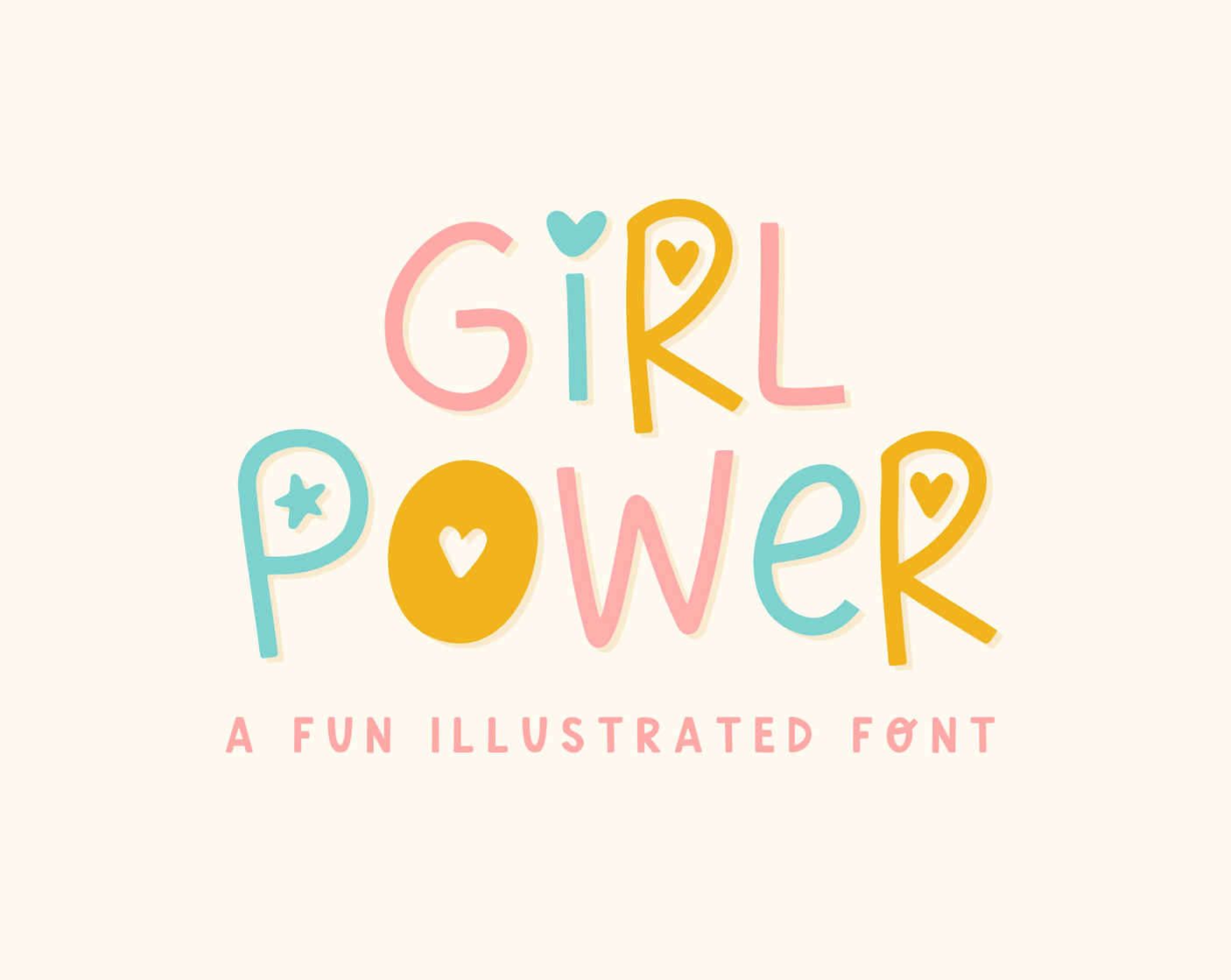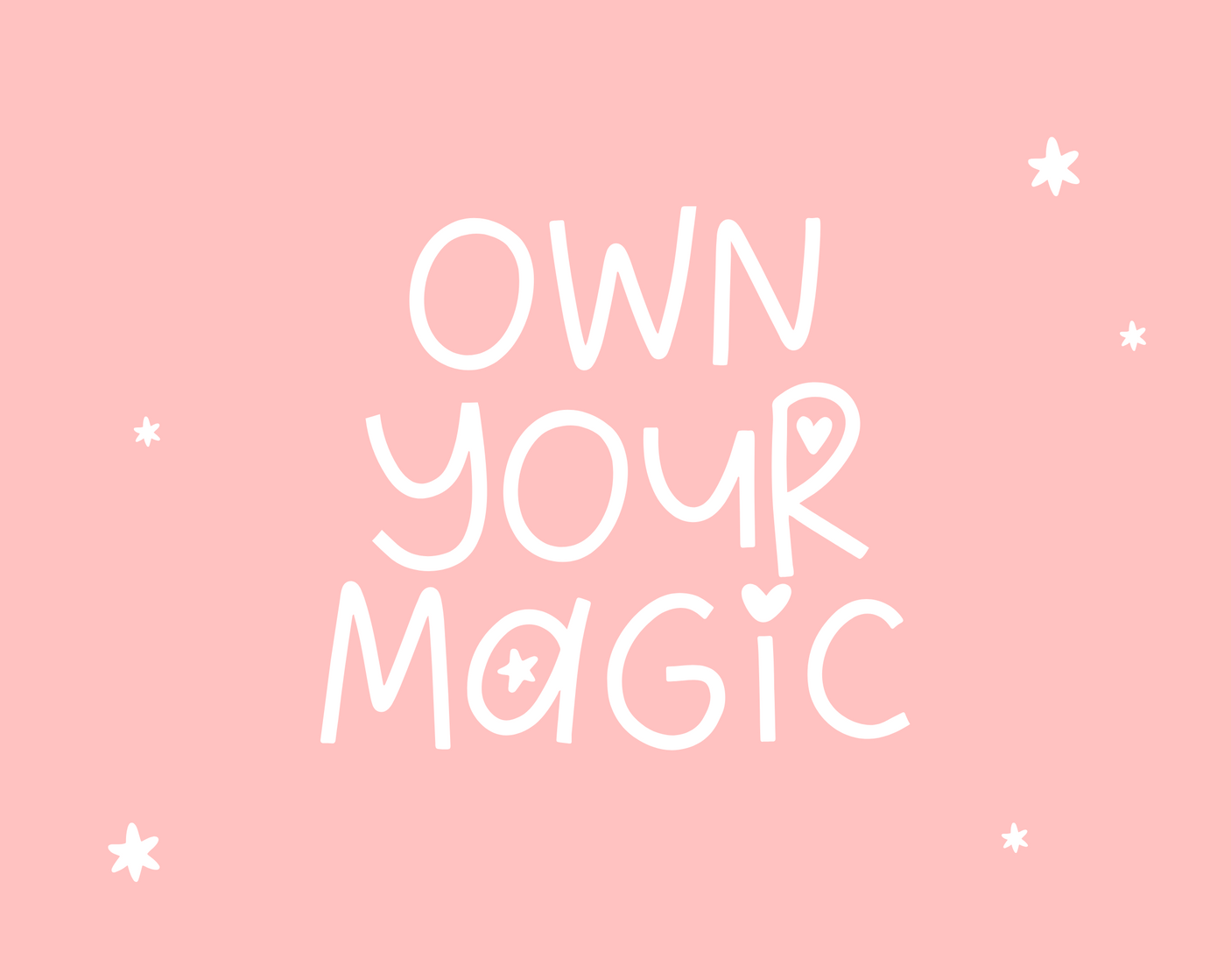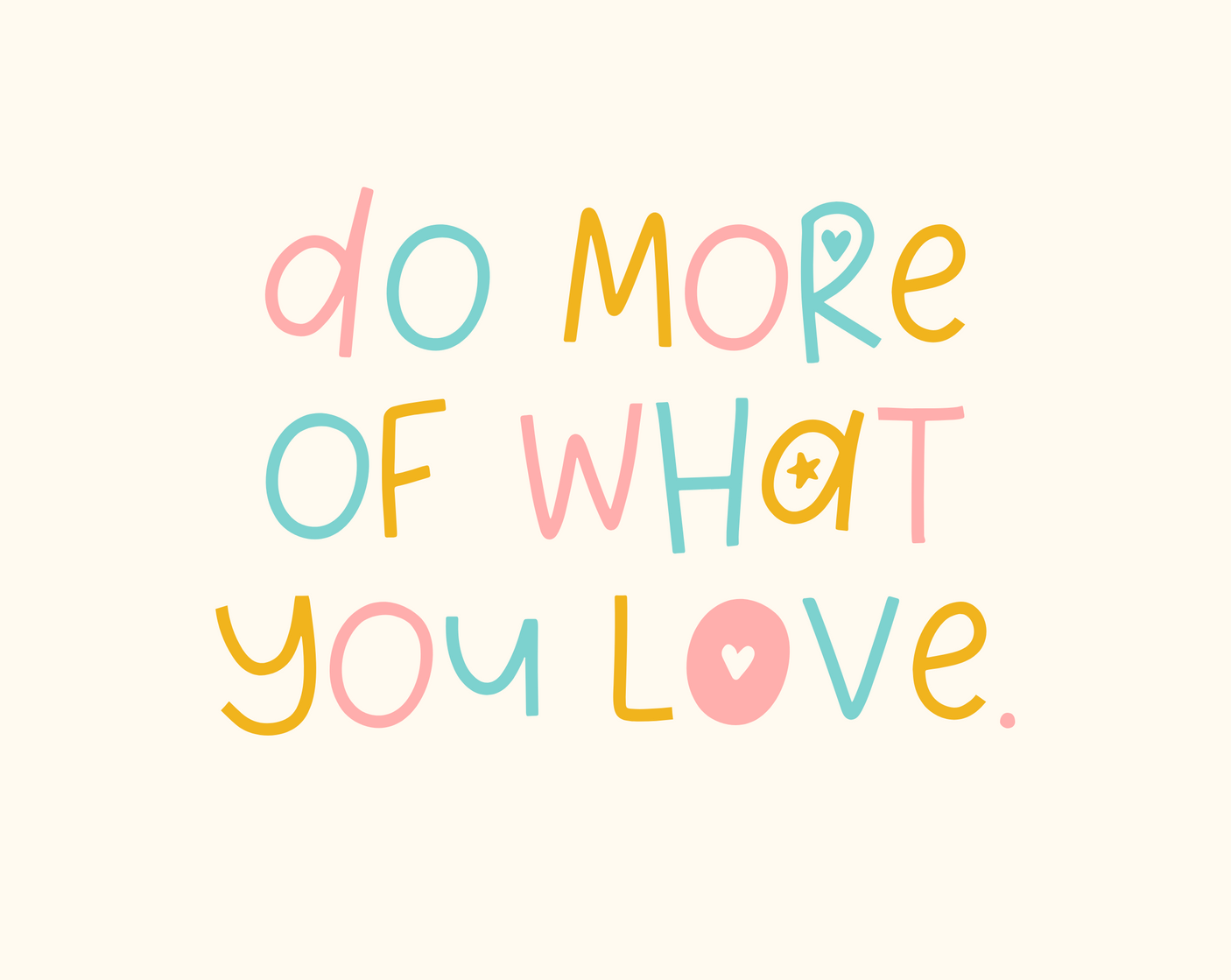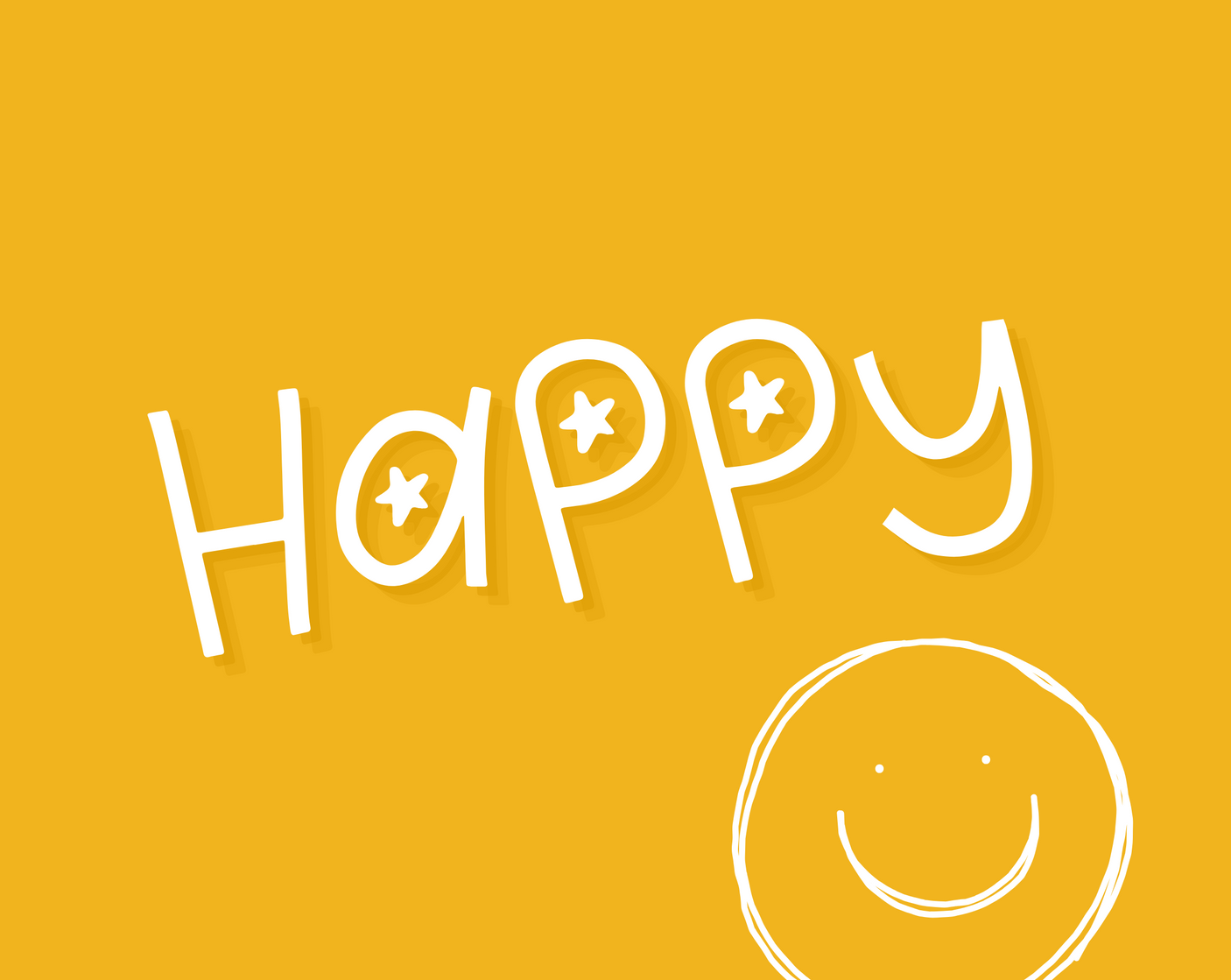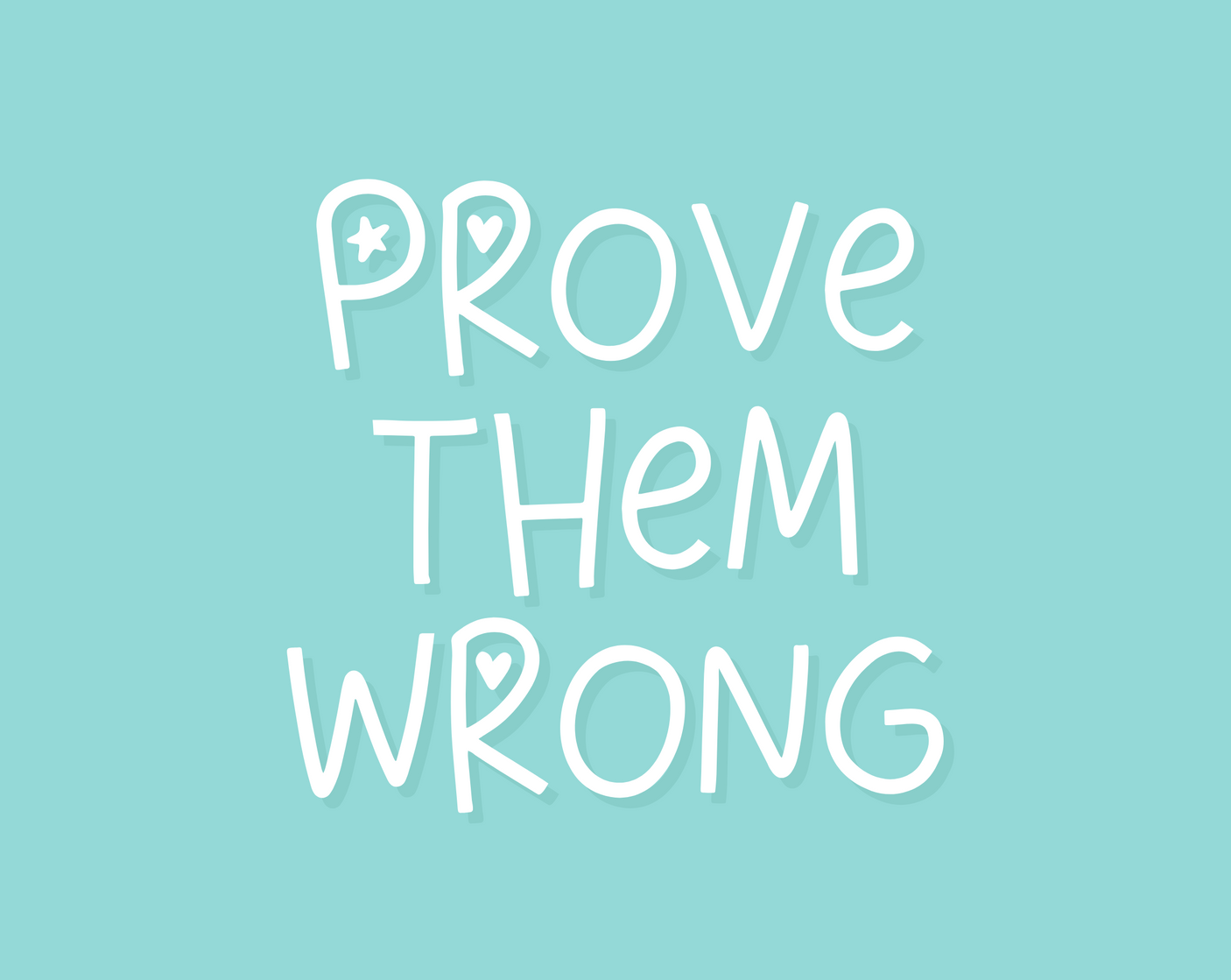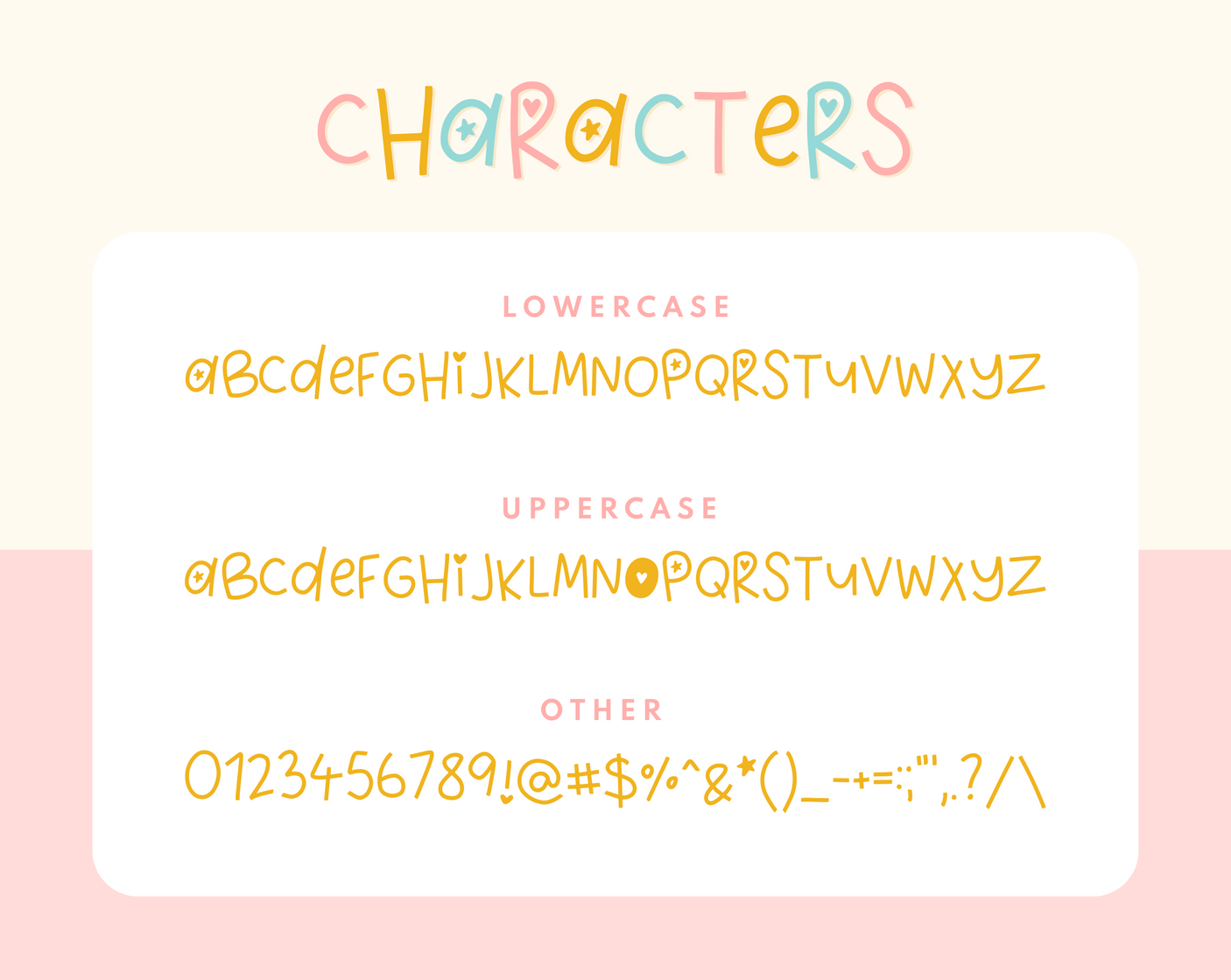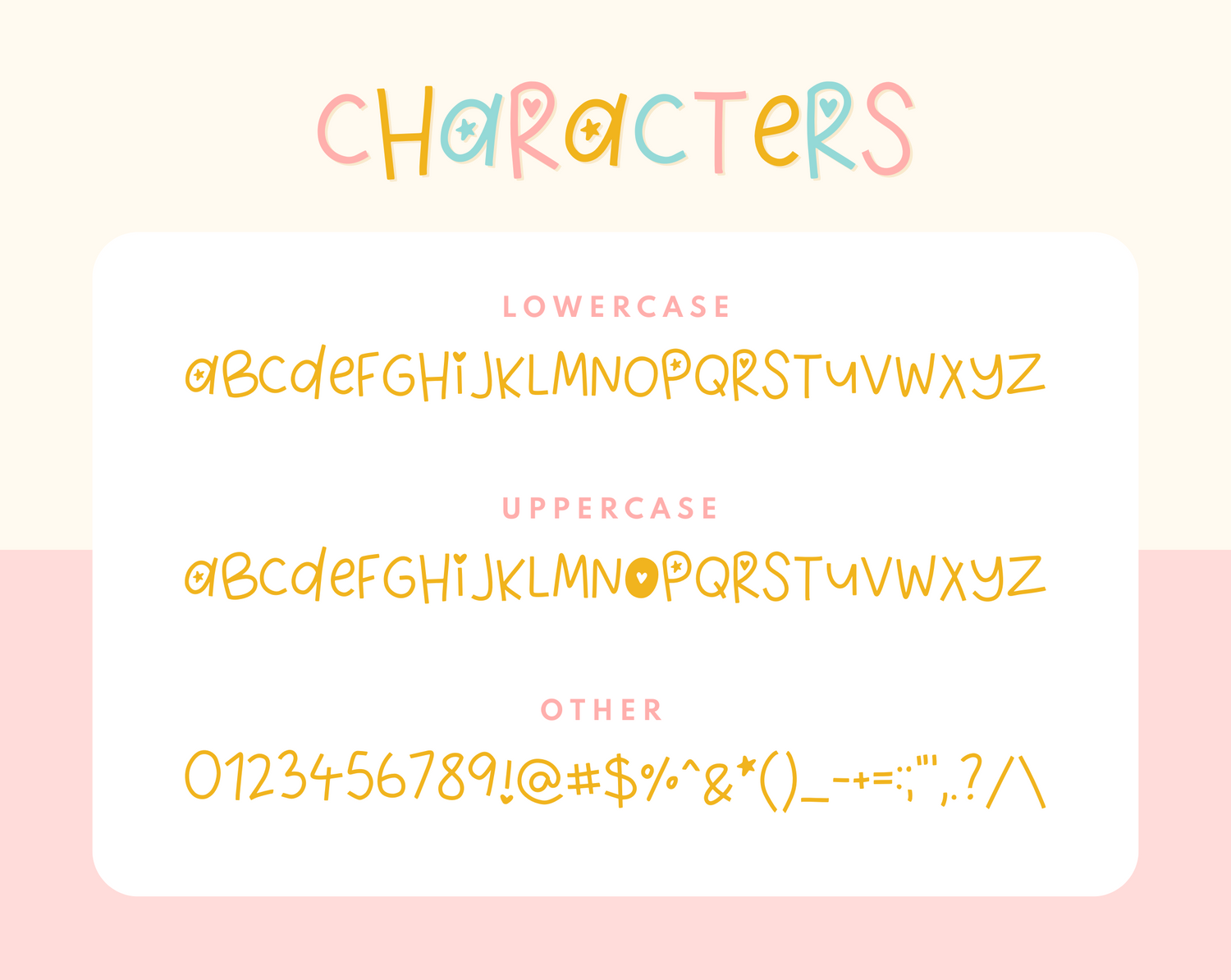
Girl Power Font
Unleash your creativity with the Girl Power font! This energetic typeface is a quirky blend of uppercase and lowercase letters that brings a lively, fun vibe to your projects.
Whether you're working on Procreate, Cricut, or Canva, this font is perfect for adding a touch of personality to your designs. Its playful nature makes it ideal for everything from social media graphics to DIY crafts, ensuring your text always stands out with charm and flair.
Designed for versatility, Girl Power effortlessly enhances any creative project, no matter the platform. The font's unique mix of letterforms invites you to explore endless design possibilities, from bold headlines to decorative elements.
With its approachable and dynamic style, Girl Power is not just one of Design Pixie's playful fonts, it's a statement. Let your designs shout confidence and creativity.